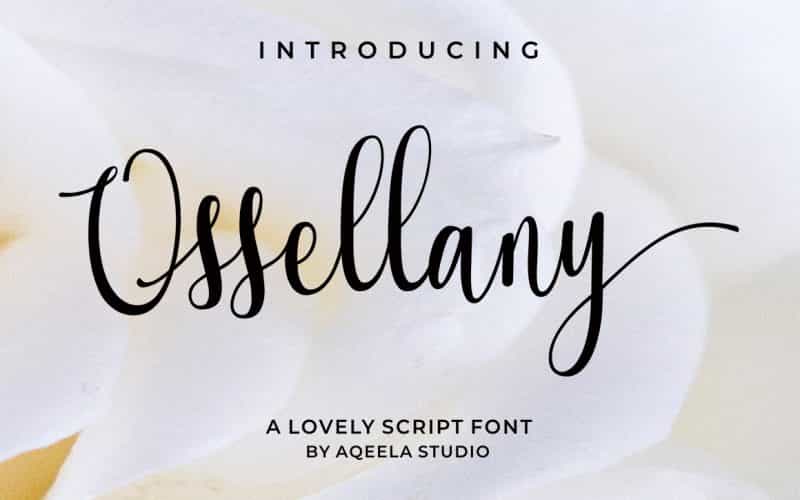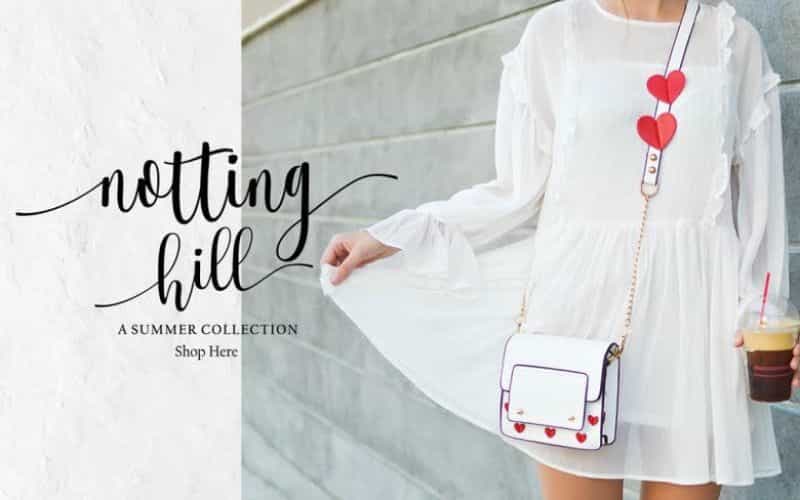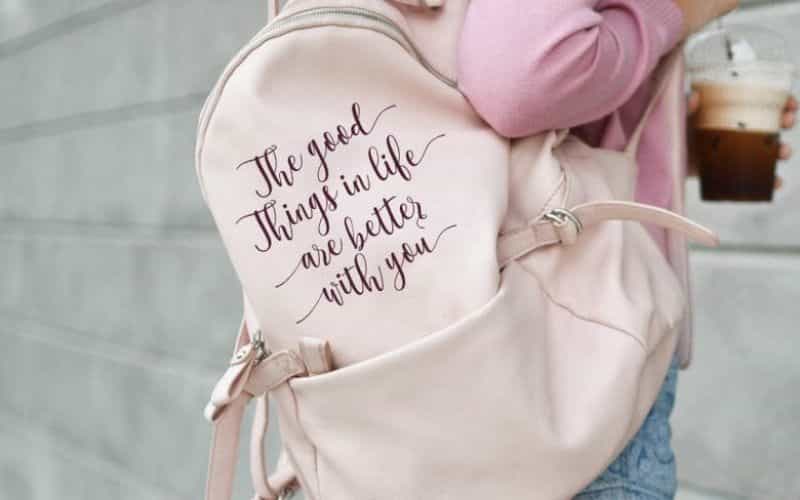
Ossellany Script is a contemporary calligraphy font, where the characters dance along the baseline and have a touch of elegance. Opentype features with stylistic alternates, ligatures and multiple language support are included. It can be applied to different ends. Like the logos, wedding invitation, heading, t-shirt, letterhead, signage, lable, news, posters, badges and many others.